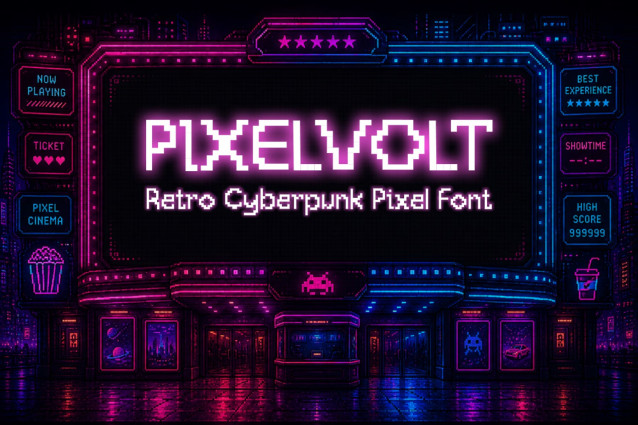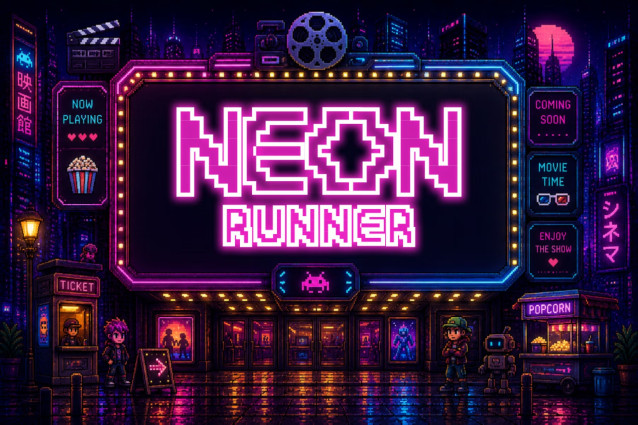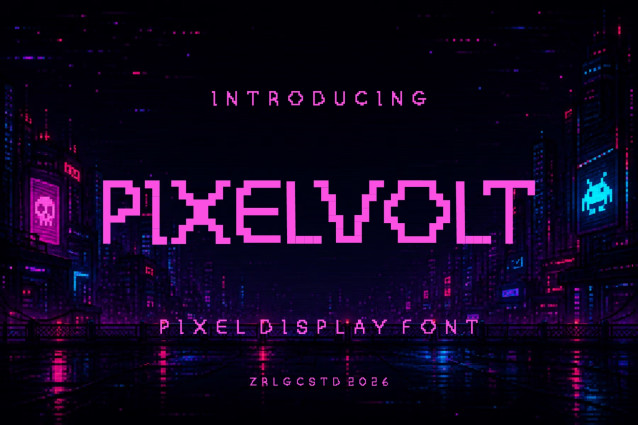
PIXELVOLT is a retro Pixel Cyberpunk Display Typeface designed to bring a bold 8-bit aesthetic to digital creations. With its distinctive pixel-built characters, PIXELVOLT is perfect for games, posters, logos, branding, UI/UX designs, movie titles, social media graphics, YouTube thumbnails, and more.
Inspired by classic arcade games and futuristic digital interfaces, PIXELVOLT combines a nostalgic retro feel with a clean, modern visual style.
Natural fits include esports graphics, indie game titles, retro tech branding, synthwave album covers, and streaming overlays. It is best suited for high-impact display uses such as event posters, YouTube thumbnails, apparel designs, and bold headlines where its digital personality can take center stage.